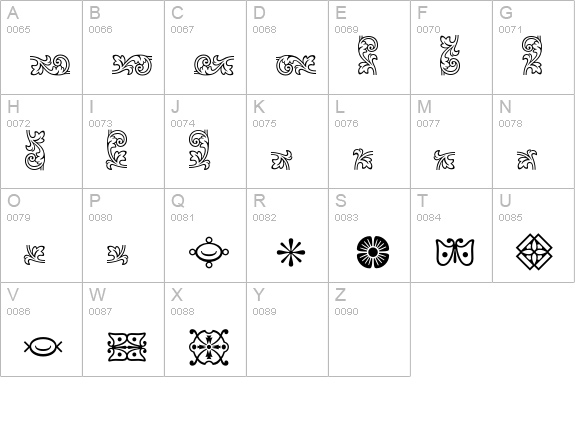
Clifford-Borders font is a captivating and versatile typeface that effortlessly combines elegance with a touch of creativity. Its unique design features intricate borders that add a sophisticated and stylish flair to any project. Whether used for headlines, invitations, or branding materials, Clifford-Borders font is sure to make a lasting impression. What makes this font even more appealing is that it is completely free to download at FontsMarket.com. With just a few clicks, you can add this stunning font to your collection and start using it in your designs right away. Don't miss out on the opportunity to enhance your projects with the beauty and charm of Clifford-Borders font - download it now and let your creativity shine!